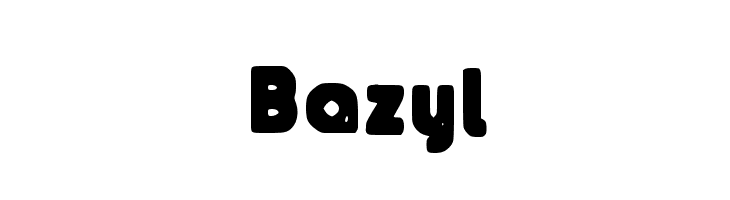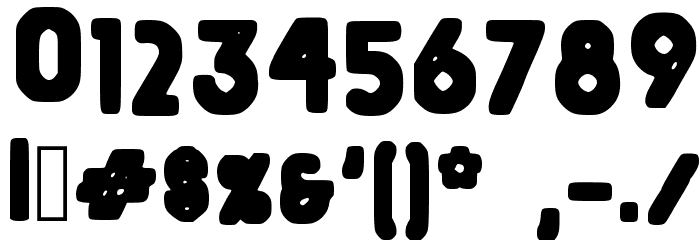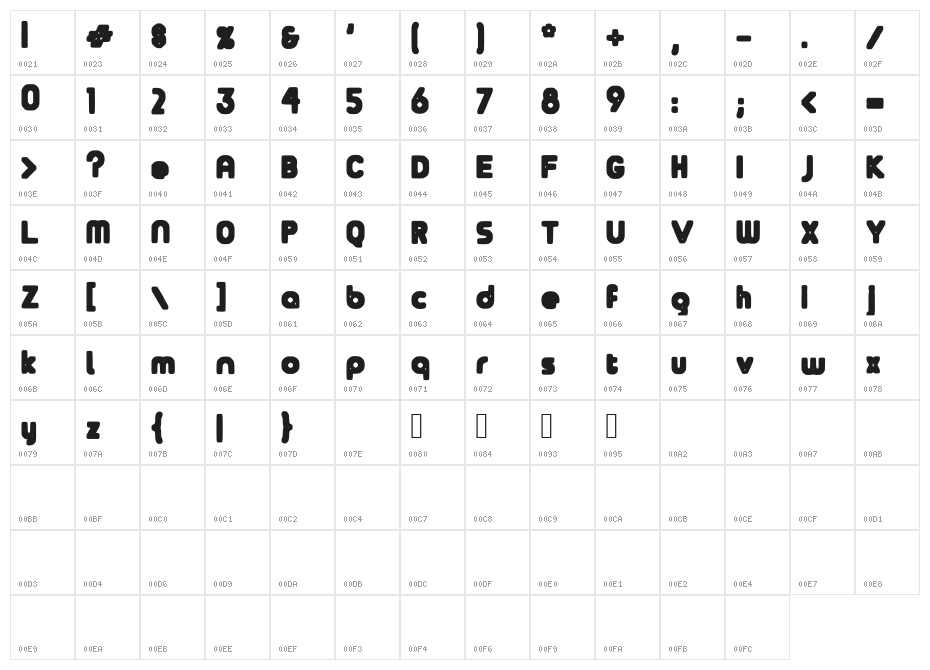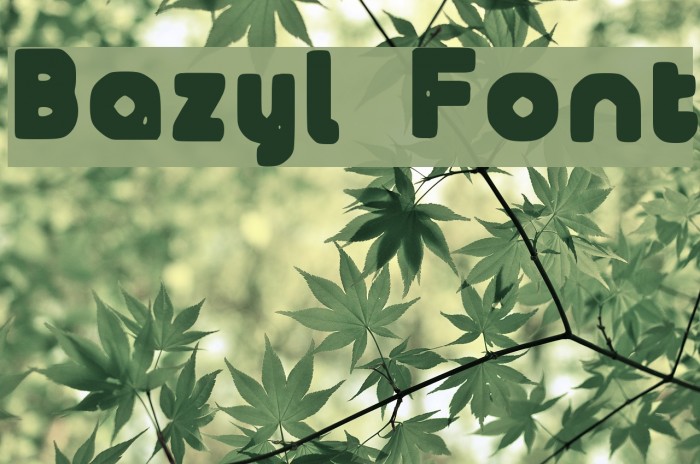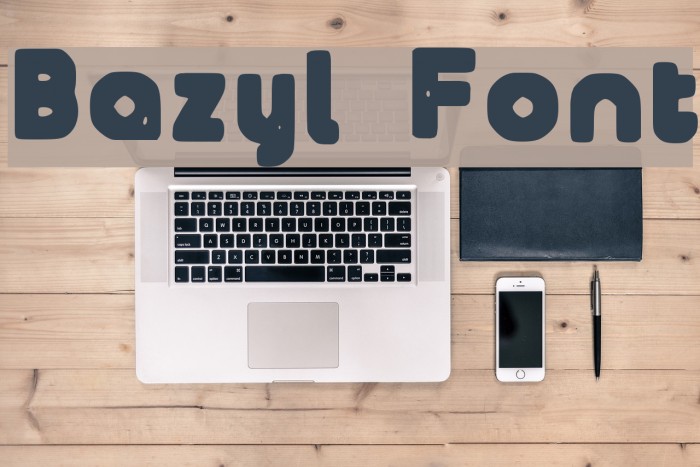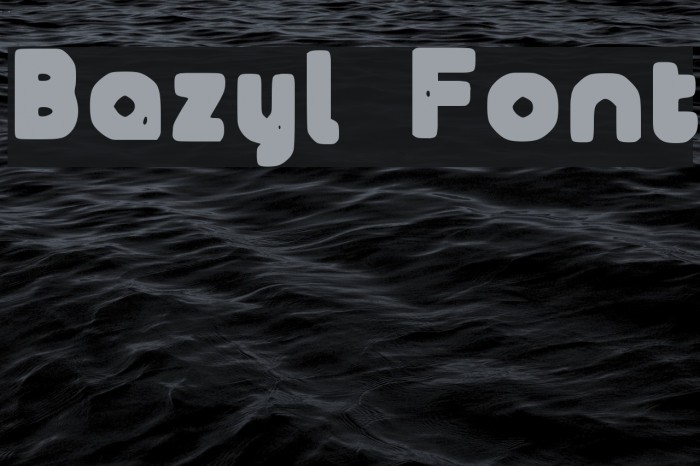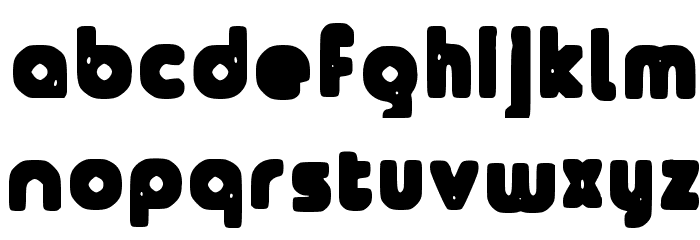
Bazyl Font
Bazyl Description
This font features a bold and playful style with rounded edges and a chunky appearance. The characters are uniformly thick, giving it a strong presence and making it highly legible. The rounded forms and consistent stroke width contribute to a friendly and approachable look, suitable for casual and fun designs. The font maintains a consistent weight throughout, with no variation in stroke thickness, which adds to its bold and solid feel. The characters are evenly spaced, ensuring clarity and readability. This font is ideal for projects that require a touch of whimsy and boldness.
| Overall Style | Playful, Bold |
| Proposed Projects | Ideal for children's books, playful branding, posters, and social media graphics. |